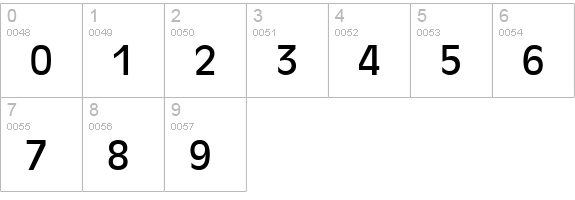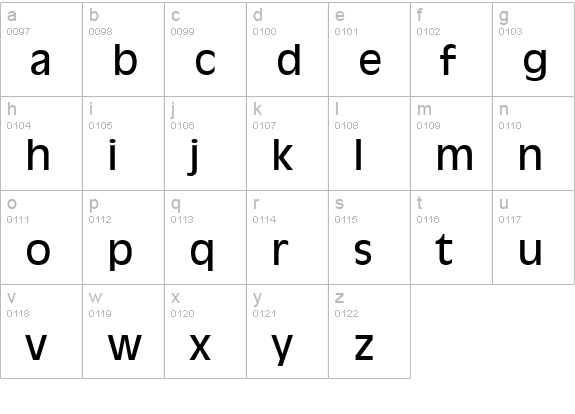
Decade SSi font is a stunning display typeface that exudes elegance and sophistication. With its unique and bold letterforms, this font is perfect for creating eye-catching headlines, posters, and branding materials. Its modern yet timeless design makes it suitable for a wide range of projects, from luxury fashion to tech startups. What makes Decade SSi font even more appealing is that it is available for free download at FontsMarket.com. This means you can easily access and use this beautiful font in your designs without any cost. Whether you're a professional designer or a hobbyist looking to add a touch of class to your projects, Decade SSi font is a fantastic choice that won't break the bank. Download it today and elevate your design game with this exquisite typeface.